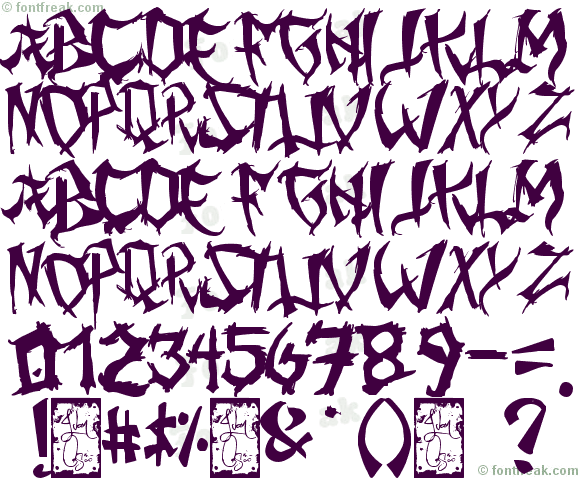
Ming Gothic Prima
Ming Gothic Prima, designed by Juan Casco, is a unique display font that blends gothic influences with modern design. This font falls into the category of decorative typefaces, making it an exceptional choice for projects that require a bold and artistic touch. Characterized by its dramatic stroke weight and angular forms, Ming Gothic Prima presents a captivating visual aesthetic that commands attention. The contrast between thick and thin lines creates a dynamic rhythm, while its distinctive spacing adds to its overall impact. The font features sharp, pointed elements that enhance its gothic appeal, making it suitable for a variety of creative applications.
This font is perfect for use in wedding invitations where an elegant yet edgy vibe is desired, as well as movie posters that aim to evoke a sense of mystery and intrigue. Restaurant menus can also benefit from the unique flair of Ming Gothic Prima, particularly in establishments that focus on a modern or avant-garde theme. Additionally, it serves well in branding materials for graphic designers looking to create standout logos or promotional materials that resonate with a target audience seeking originality.
What sets Ming Gothic Prima apart is its ability to straddle the line between tradition and contemporary design. Its striking visual characteristics, combined with its broad applicability, make it a standout choice for anyone looking to infuse their work with personality and style. Whether you’re crafting a unique piece of art or enhancing your brand's identity, this font delivers a compelling solution.